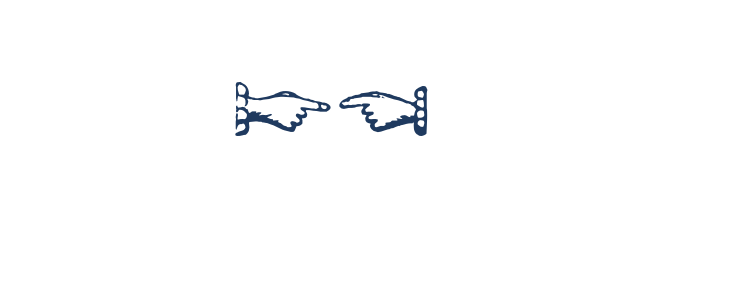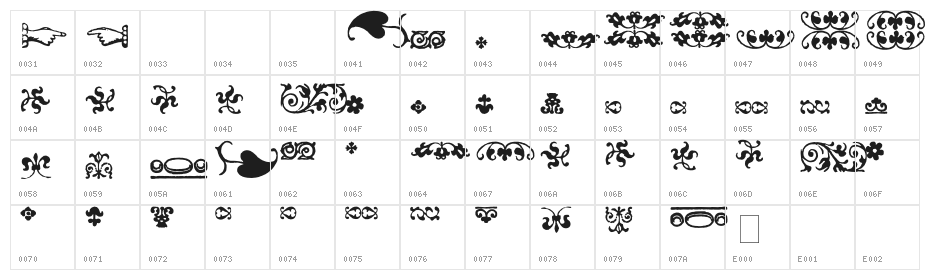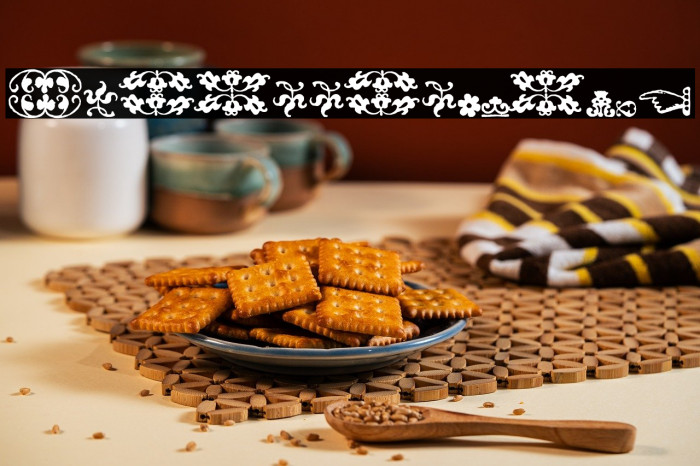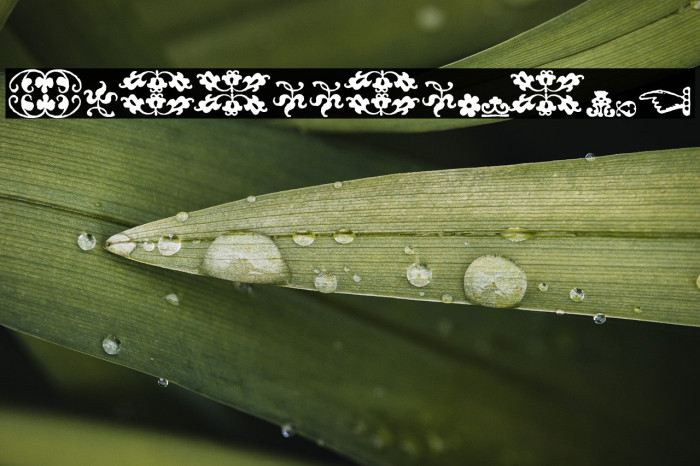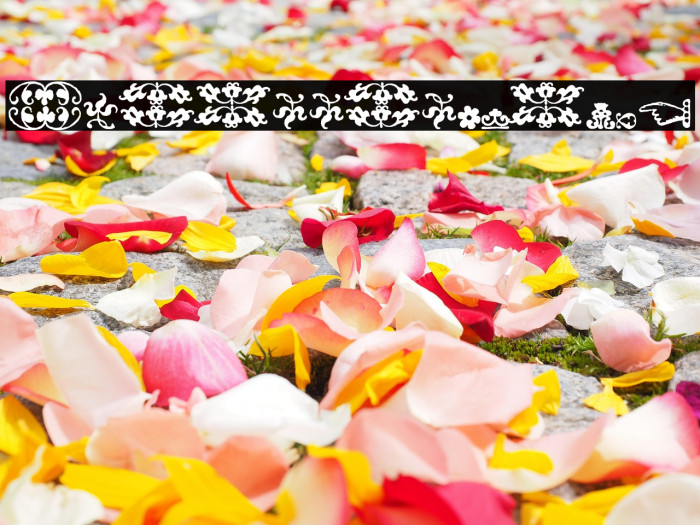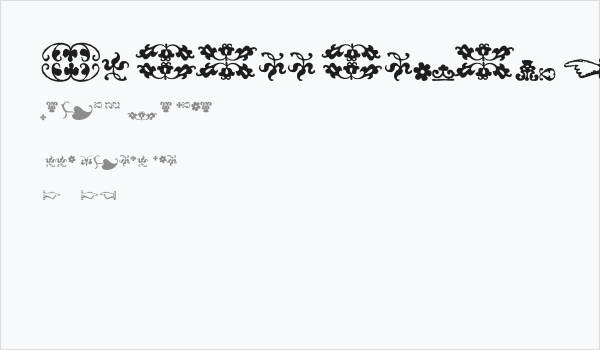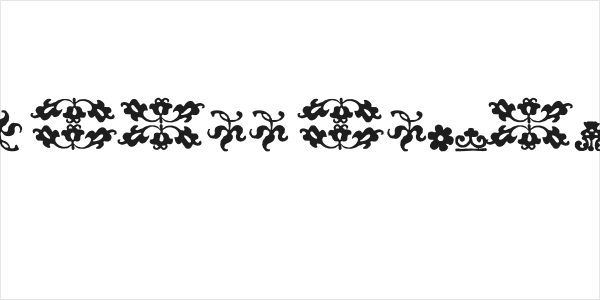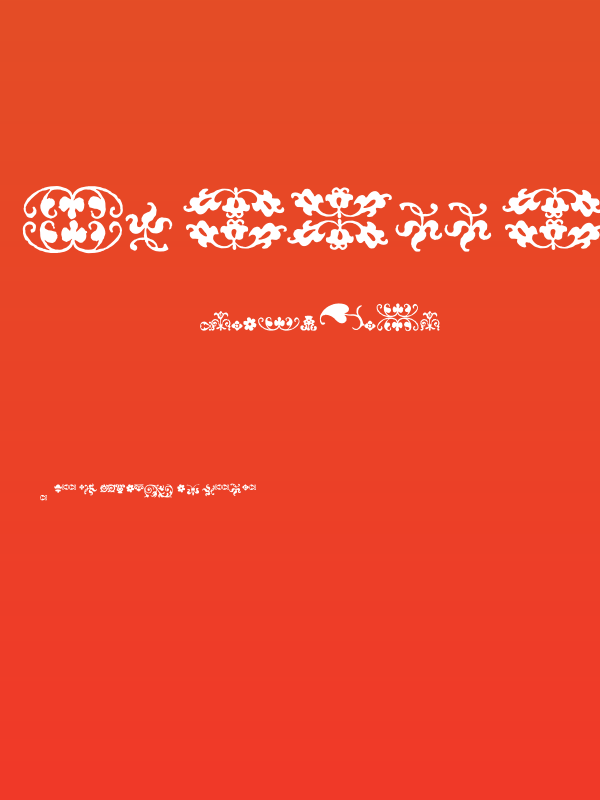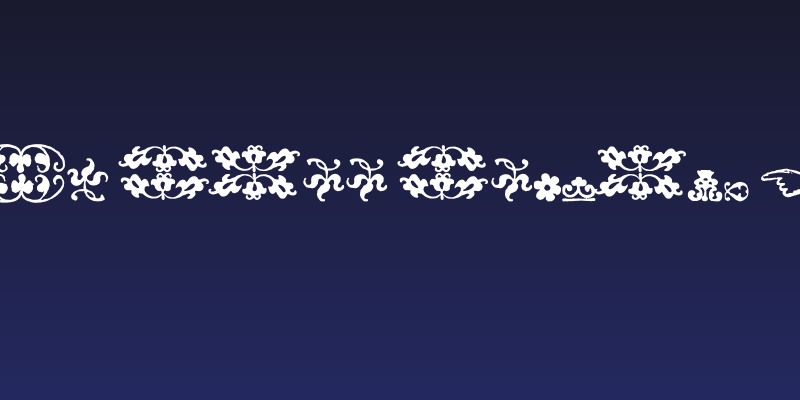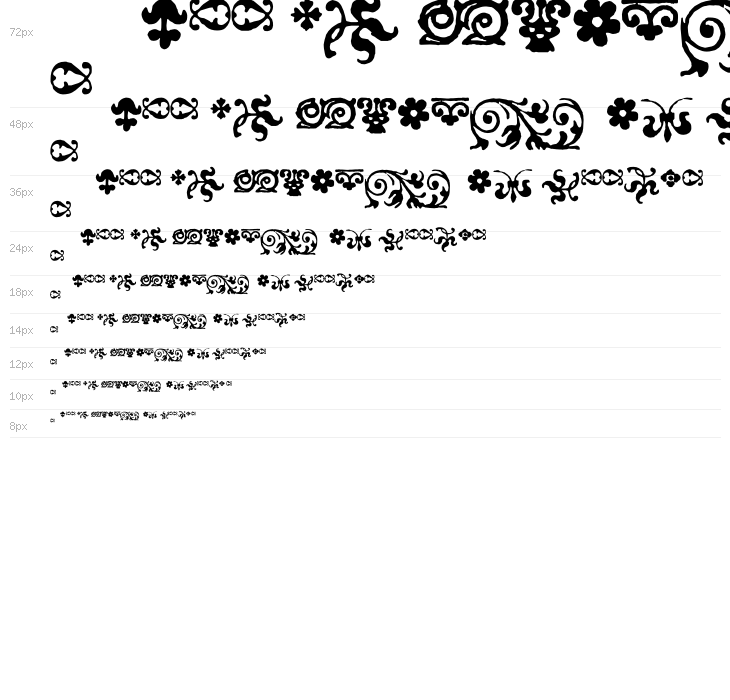
IM_FELL_FLOWERS_2 Font
IM_FELL_FLOWERS_2 Description
This is a decorative font featuring intricate floral and ornamental designs. The elements are highly detailed, showcasing a variety of floral motifs, swirls, and embellishments that evoke a sense of elegance and sophistication. The designs are reminiscent of vintage or classical styles, often used in decorative borders or as embellishments in design projects. The overall appearance is ornate, with a focus on aesthetic appeal rather than readability.
| Use Case | Decorative elements, Artistic embellishments |
| Proposed Projects | Ideal for wedding invitations, vintage-themed posters, decorative borders, and artistic projects requiring an elegant touch. |